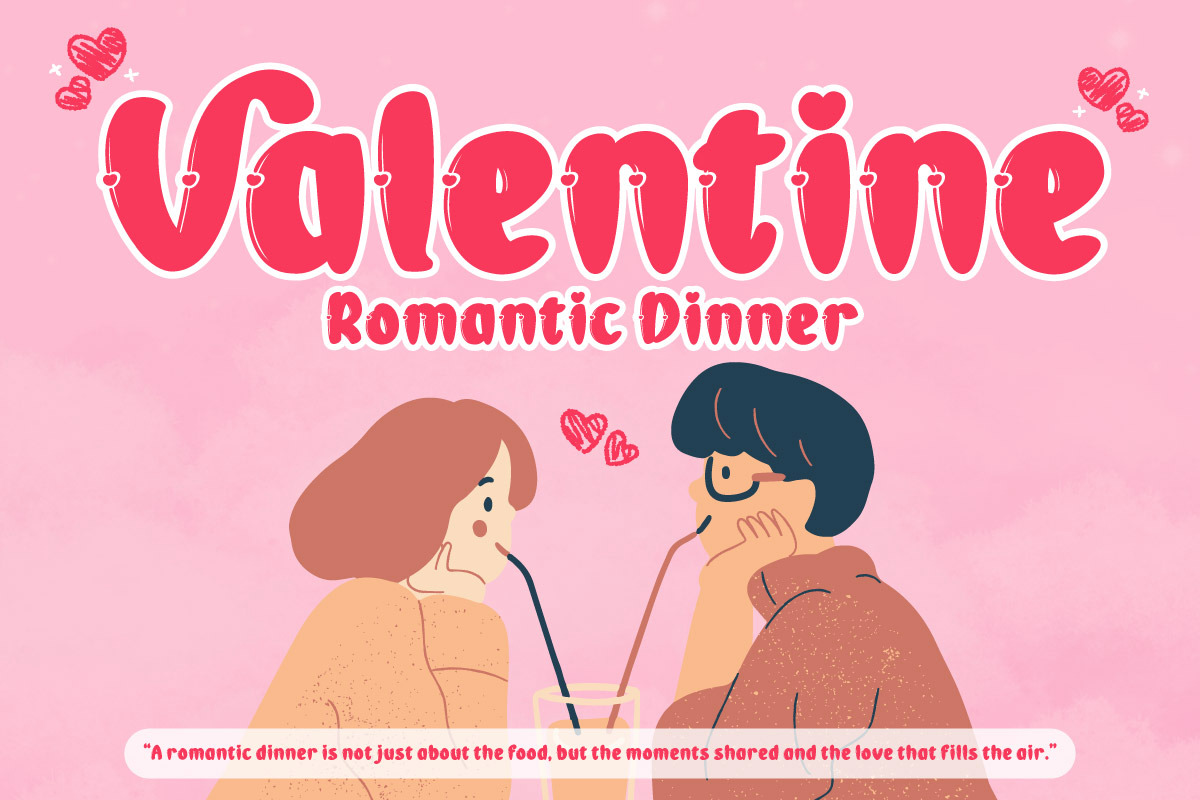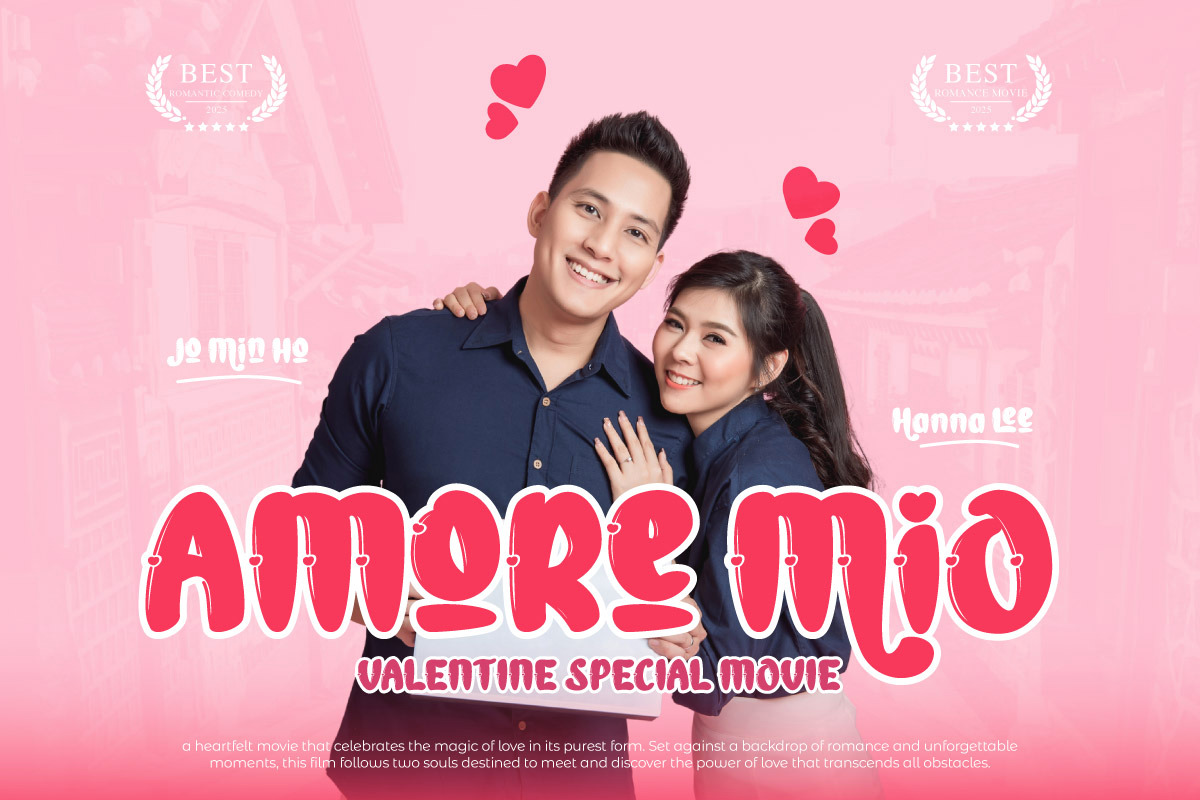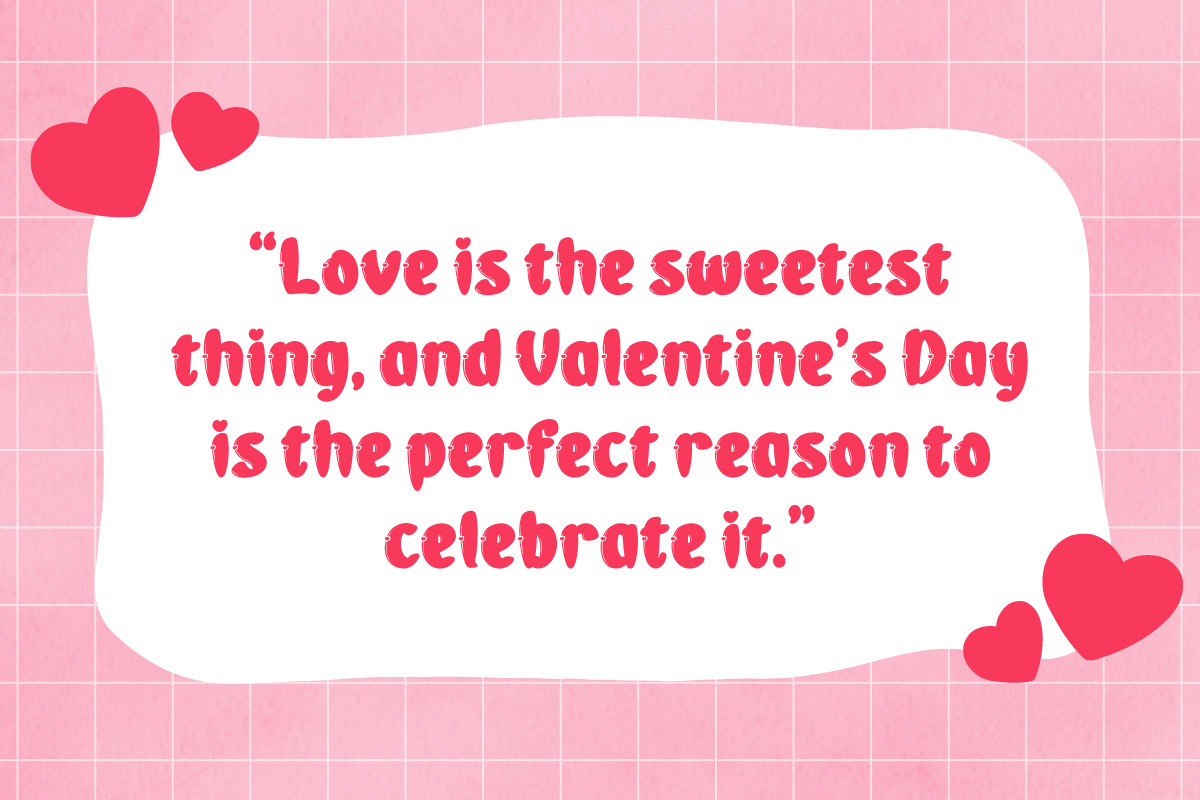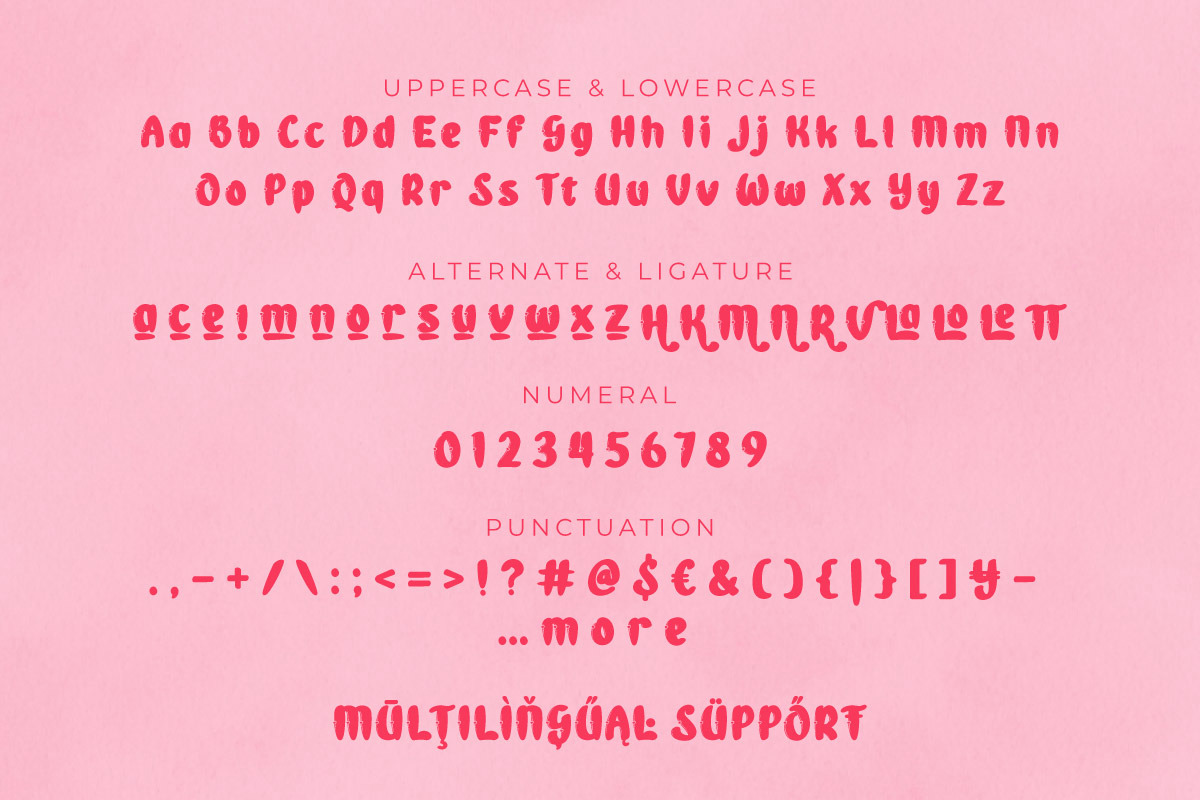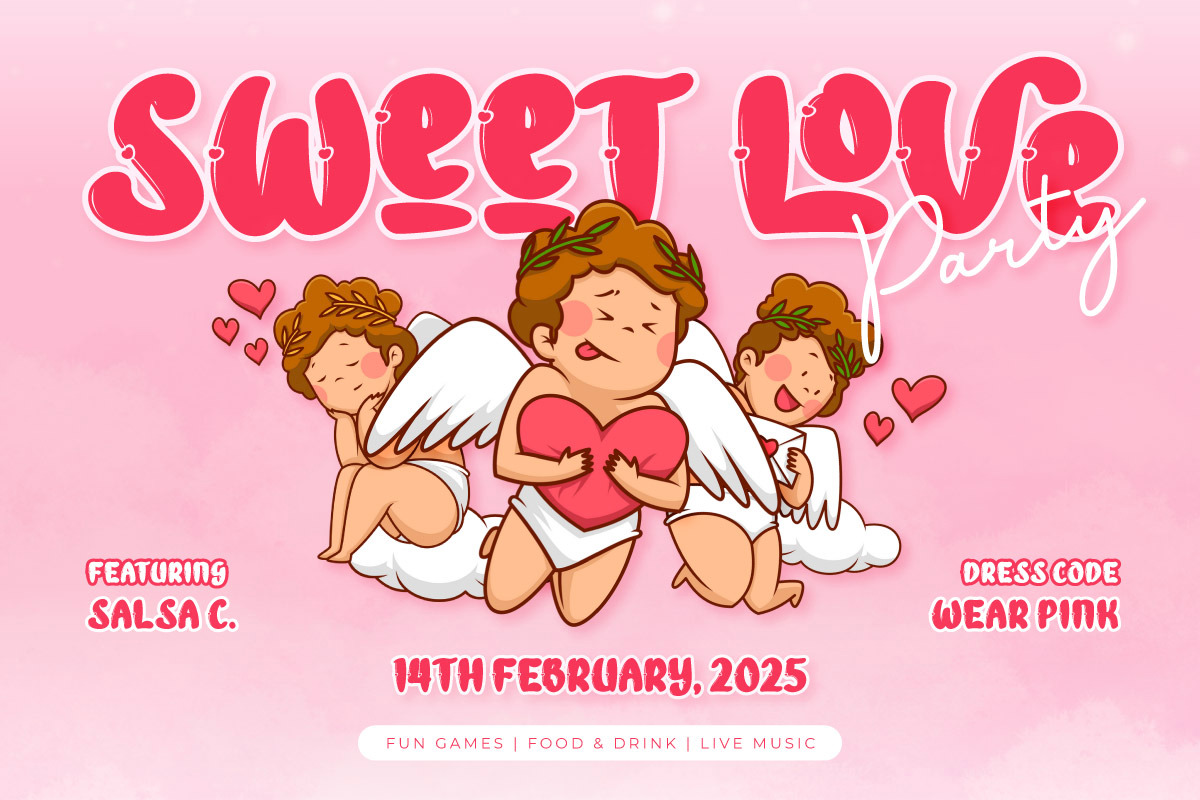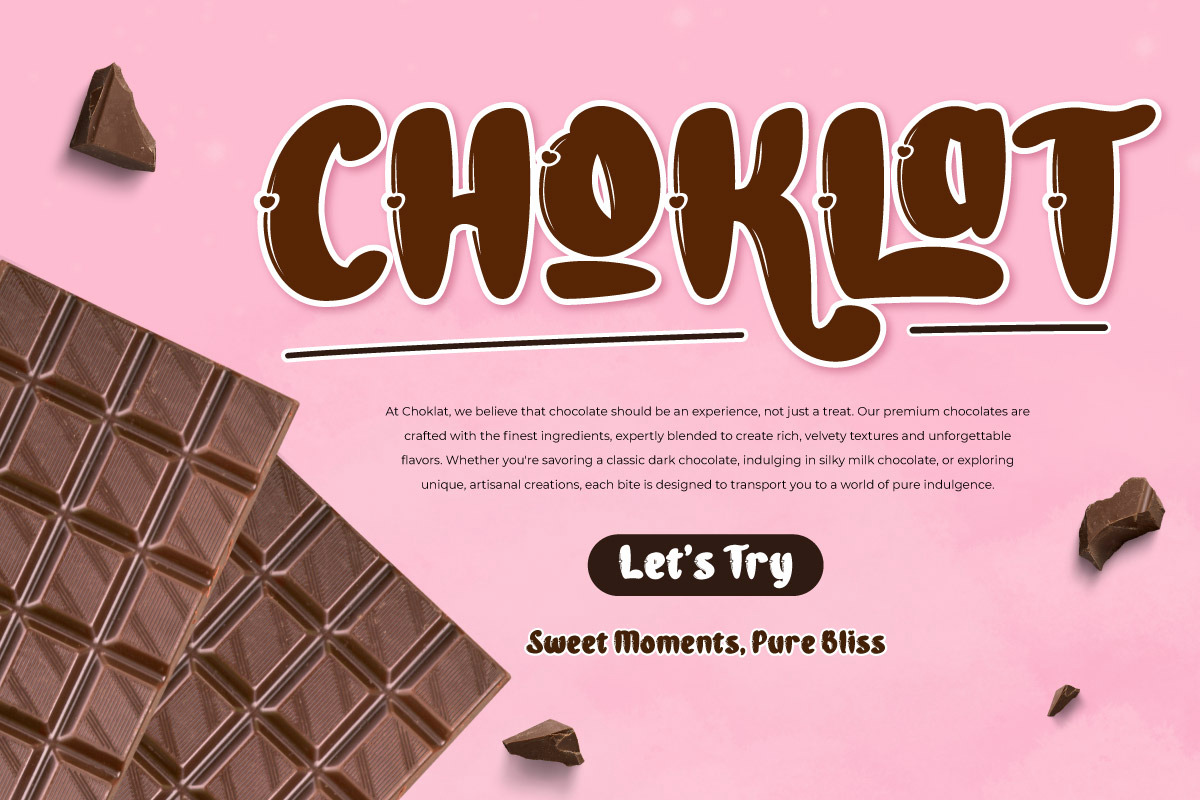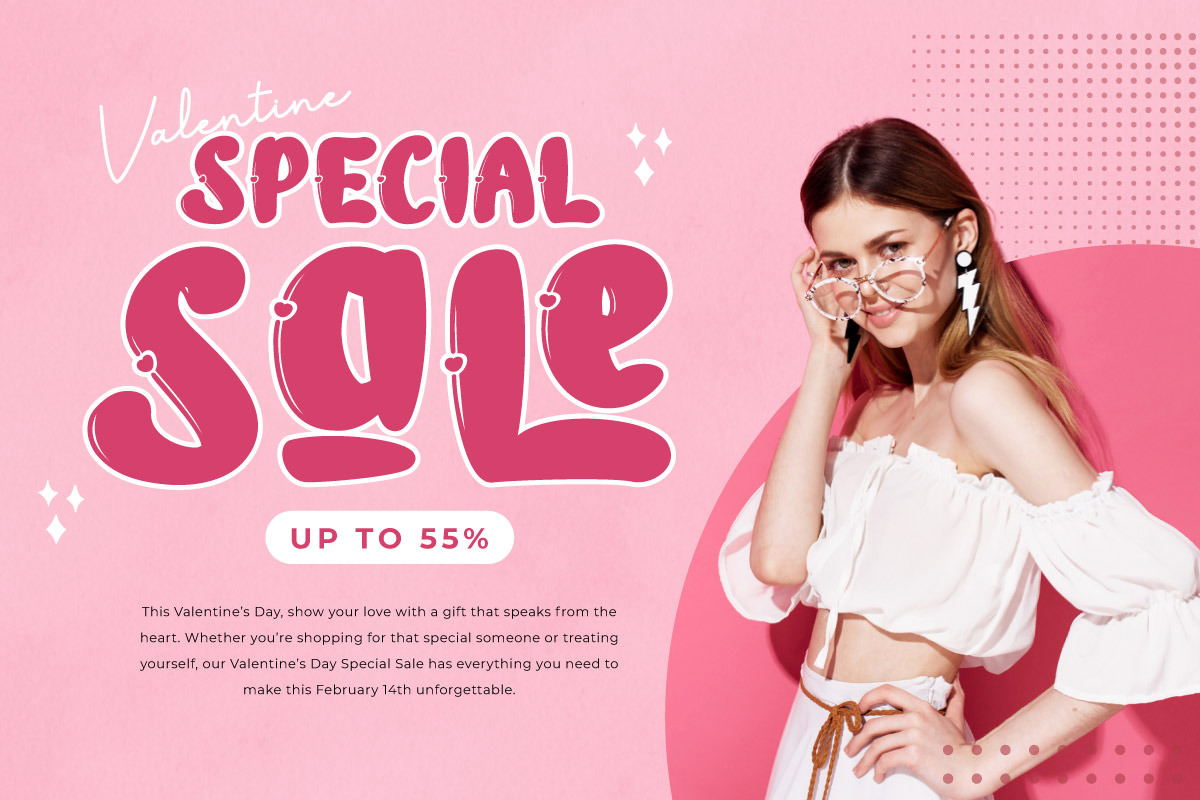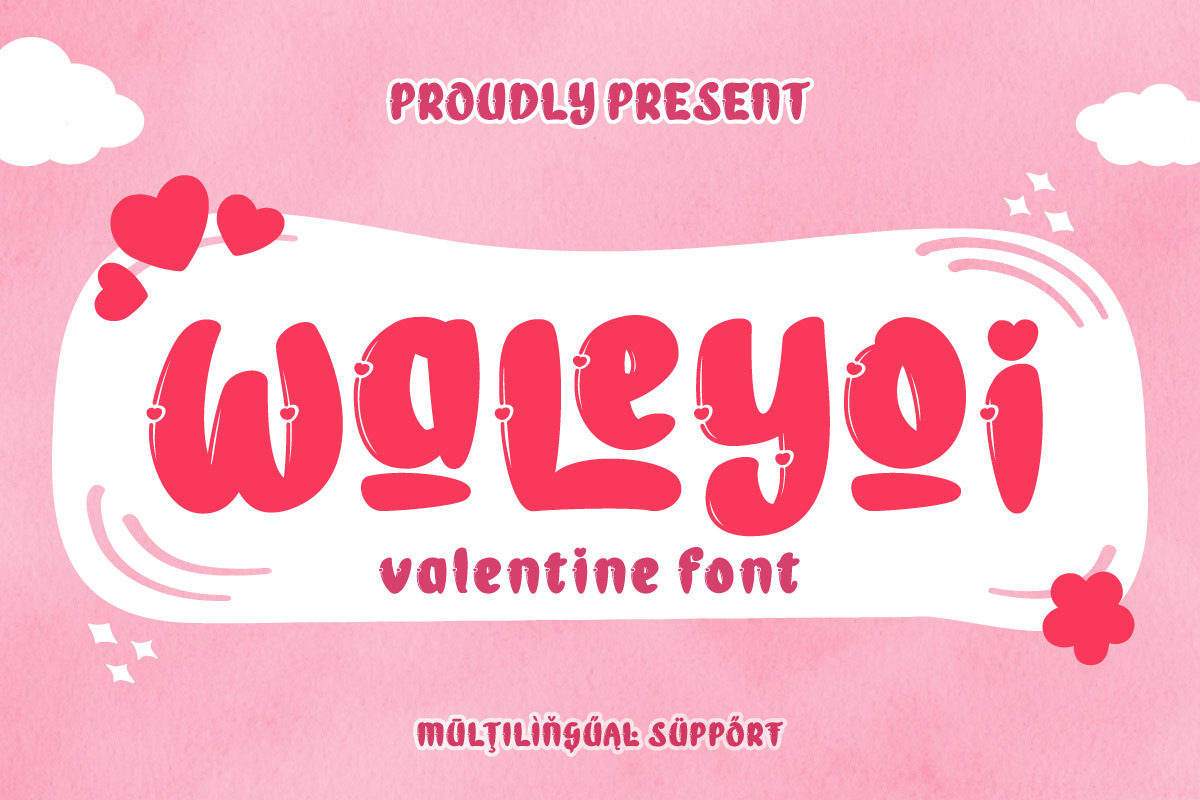
Waleyoi - Whimsical Valentine Font
Waleyoi is a charming, sweet, and romantic font that brings a whimsical and elegant feel to any Valentine’s design. Whether you're working on love notes, romantic branding, or special event invitations, this font enhances your creativity with soft curves, heart-inspired elements, and stylish aesthetics. Ideal for designers, social media marketers, and businesses looking to create eye-catching Valentine promotions, chocolate packaging, love festival banners, and heartfelt greeting cards. Let Waleyoi make your projects more lovable and visually appealing.